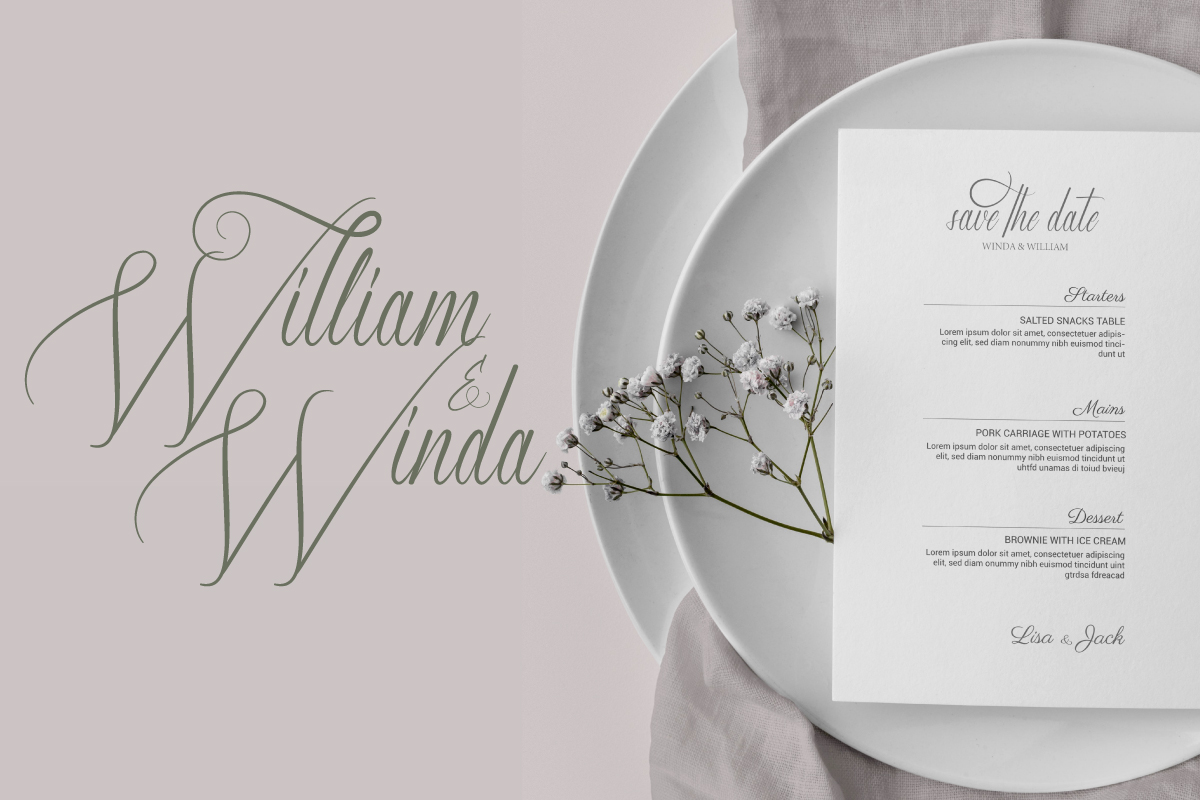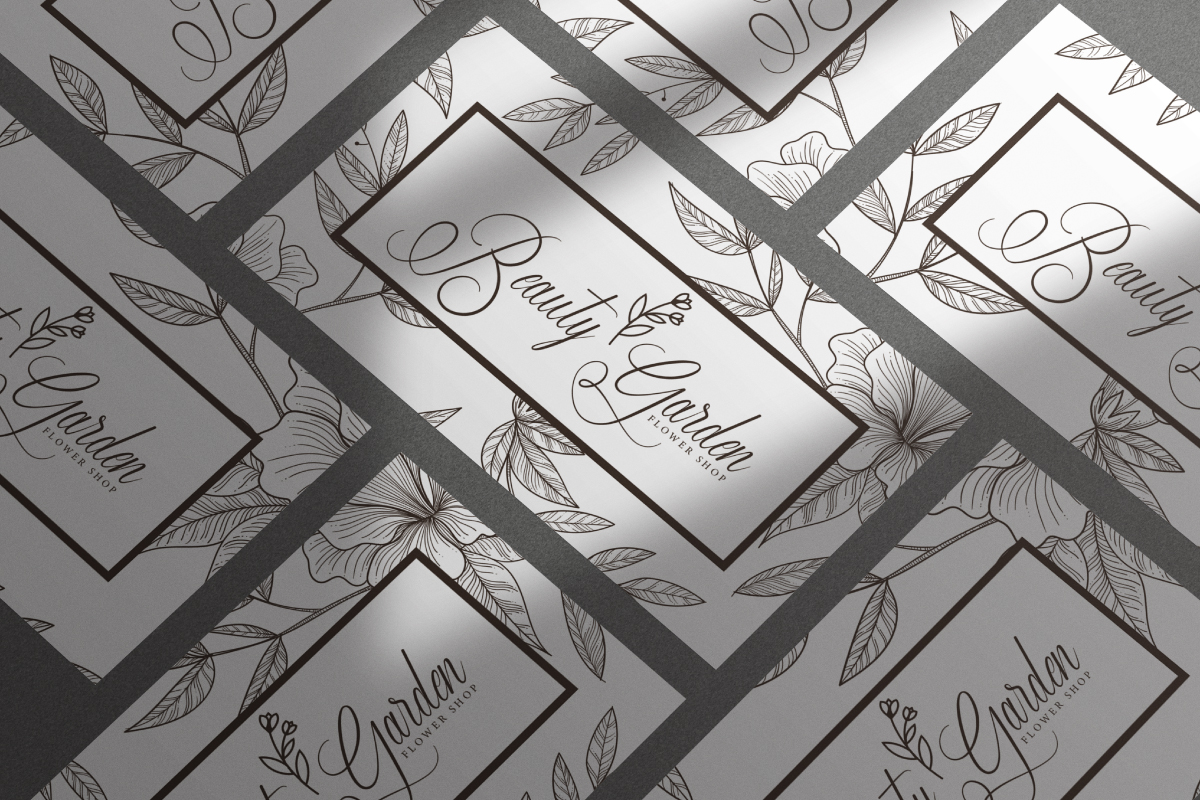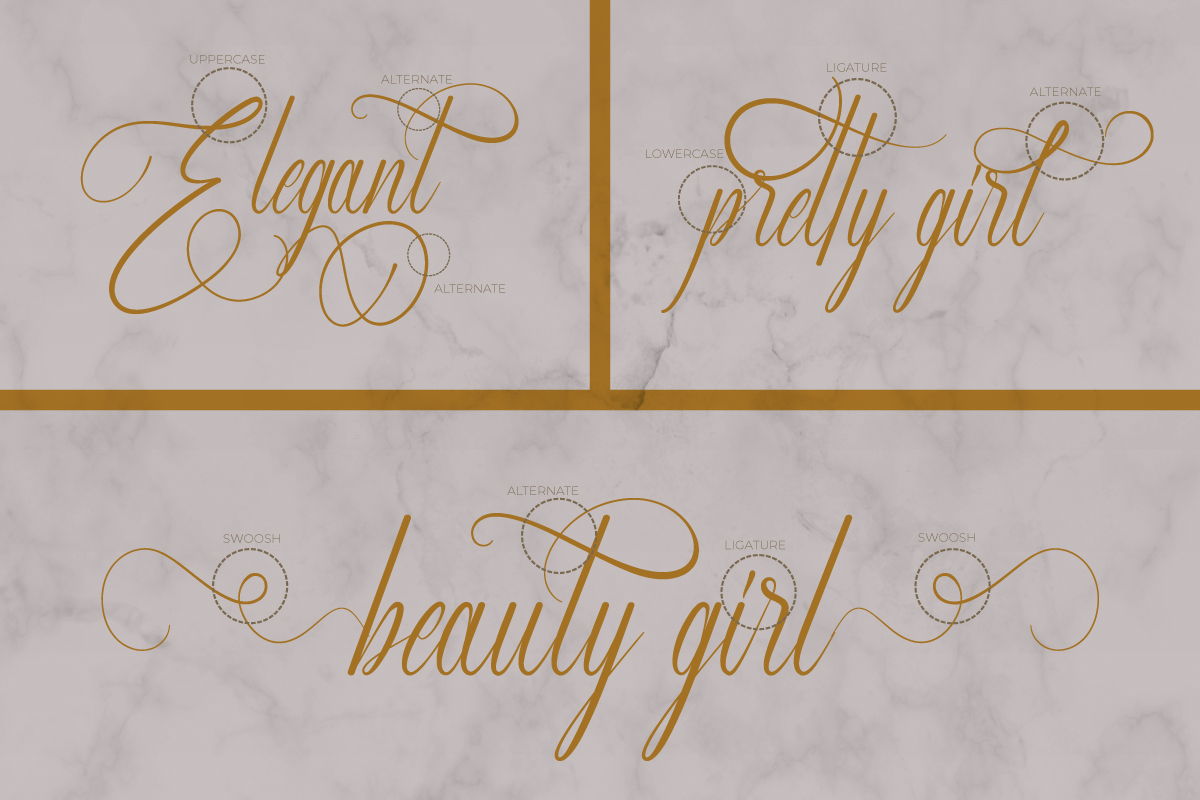
Louis Ahera Font
Louis Ahera Script Font
This is a beautiful handwriting calligraphy font. It has unique looks that are chic, modern, elegant, luxury, lettering and sophisticated Calligraphic font.